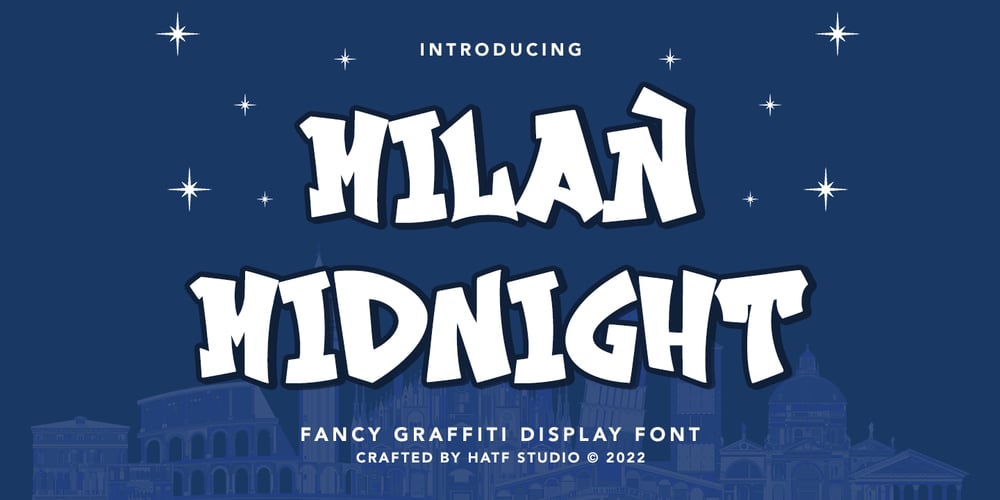
Milan Midnight Font Family was designed by Asep Rendi and published by Hatftype. Milan Midnight contains 1 styles and family package options. A graffiti display font with free style font that has the characteristics of street art that shows freedom and is filled with unique characters.Feature :* Symbol* Number* Punctuation* Multilingual support* Support in Mac and Windows OS* Support in design applications (photoshop, illustrator, and more)- All Caps I really hope you enjoy it.